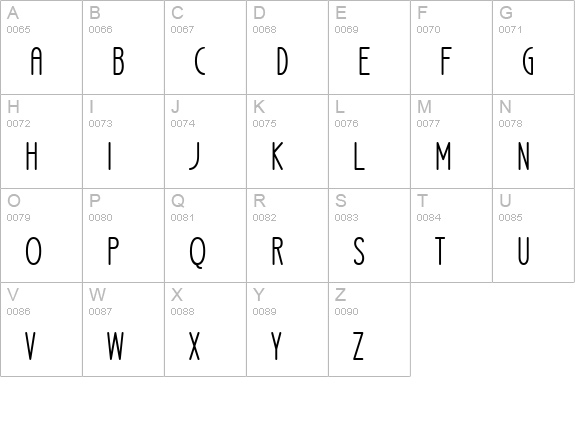
LA Headlights BTN Cond Font Details
LA Headlights BTN Cond is a distinctive, condensed-width variant in the LA typeface family \xE2\x80\x94 well suited to design and typography projects.
Introducing LA Headlights BTN Cond, a sleek and modern font that is perfect for adding a touch of sophistication to any design project. With its condensed letterforms and sharp edges, this typeface exudes a sense of elegance and professionalism. LA Headlights BTN Cond is the ideal choice for creating eye-catching headlines, striking logos, and captivating typography. Whether you're designing a magazine spread, a website, or a brand identity, this font will instantly elevate your work and make it stand out from the crowd. But what sets LA Headlights BTN Cond apart is not just its stunning aesthetics, but also its versatility. This font is incredibly adaptable, making it suitable for a wide range of design styles and purposes. From bold and impactful to subtle and refined, LA Headlights BTN Cond can effortlessly adapt to any creative vision. And the best part? LA Headlights BTN Cond is absolutely free. Yes, you read that right. This incredible font is freely available to download at FontsMarket.com. No need to worry about breaking the bank or compromising on quality – with LA Headlights BTN Cond, you can have it all. So, why wait? Take your design projects to new heights with LA Headlights BTN Cond. Download it today and experience the power and elegance of this remarkable font.